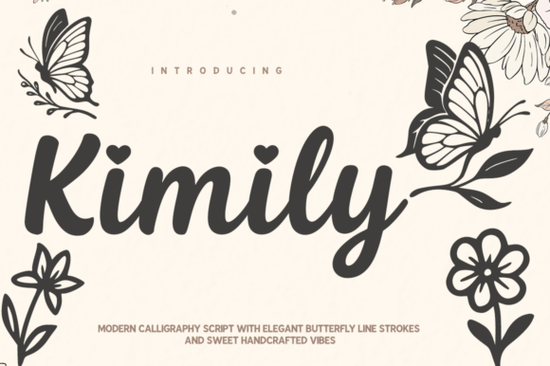
If you design wedding invitations, romantic branding, or delicate handmade projects, you know how hard it can be to find a calligraphy font that feels both polished and personal. Kimily Font solves that problem with a modern signature style that’s elegant but never stiff. The letterforms have a smooth, continuous flow with just enough contrast to stay readable no awkward thin strokes that vanish at small sizes.
What makes this font stand out immediately are the soft heart accents tucked into a few characters. They’re not loud or cartoonish; they’re subtle, almost hidden, adding a gentle romance without overwhelming the word. Plus, the package includes detailed butterfly line art. That extra decorative element turns a simple quote card or save‑the‑date into something that feels thoughtfully composed, with butterflies that seem to flit naturally around the calligraphy.
What makes Kimily different from other calligraphy fonts?
Many script fonts lean too far into either extreme overly formal with rigid flourishes, or too casual with messy, inconsistent strokes. Kimily sits squarely in the sweet spot. The characters have a feminine, flowing rhythm, but every letter maintains clean edges and even spacing. That balance means you can use it for a luxury brand logo without it looking like a teenager’s diary entry.
Because the strokes are handcrafted, you’ll see subtle variations that keep the text from looking machine‑made. The lowercase ‘k’, ‘l’, and ‘y’ have especially graceful loops, while capitals stay confident without shouting. This makes it a strong choice if you’re moving away from overly familiar script fonts and want something that still feels warm and approachable.
How can I use Kimily for wedding stationery and romantic projects?
Kimily was practically made for wedding suites. Try it on invitation names, envelope addressing, and place cards the soft curves pair beautifully with vellum overlays and watercolor florals. The heart accents become secret little details guests notice when they look closely, and the butterfly line art can be placed next to date details or table numbers for a cohesive, garden‑party feel.
Is Kimily suitable for branding and small businesses?
If you’re crafting a visual identity for a florist, a beauty salon, a candle maker, or any brand that wants a signature, handwritten mark, Kimily ticks all the boxes. It reads clearly at a glance essential for logos that appear on product labels, tiny jewelry tags, or social media avatars. The thread of sophistication makes it easy to pair with clean serif body text, so your packaging feels high‑end without being hard to decipher.
Will Kimily stay readable on merchandise and POD items?
Yes this is a crucial point for print‑on‑demand sellers. Thin, high‑contrast scripts can break up or disappear when printed on textured surfaces like mugs, canvas pouches, or tote bags. Kimily’s strokes have a consistent medium weight, so they hold up well on fabric and curved objects. Even the smaller lowercase letters stay clear, which matters when your design is viewed on a phone screen in a marketplace thumbnail.
That readability extends to digital projects too: overlay Kimily on light or dark backgrounds in Instagram posts and the text won’t look spindly. If you’ve ever tried a delicate font that pixelates at smaller point sizes, you’ll appreciate the sturdy baseline here. For a different kind of readable script that’s more casual and hand‑drawn, you might also like Salty Dish Line font it has a relaxed, everyday feel.
What are the best font pairings with Kimily?
Pairing Kimily with the right secondary font can elevate a project instantly. A clean sans‑serif for body copy like a gentle geometric or humanist style creates contrast without competing. For a more glamorous look, try layering it with a duo font that includes both a bold serif and a complementary script. Midnight Sparkle Duo font offers that kind of sparkle, and the two together can make holiday or celebration graphics feel bespoke.